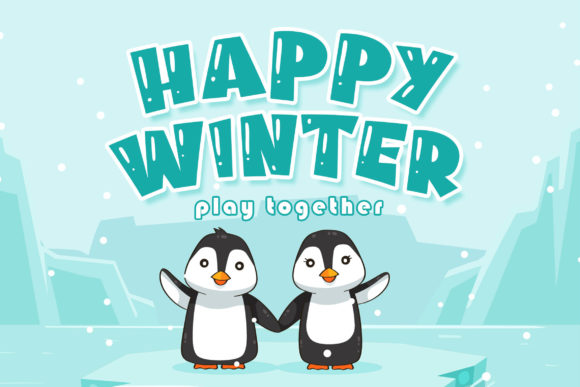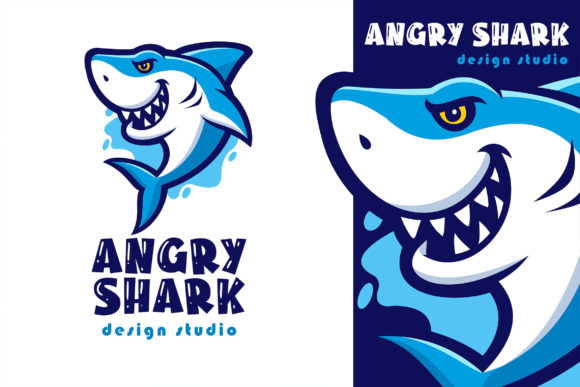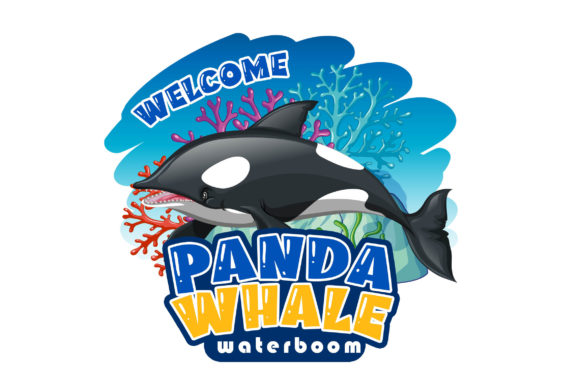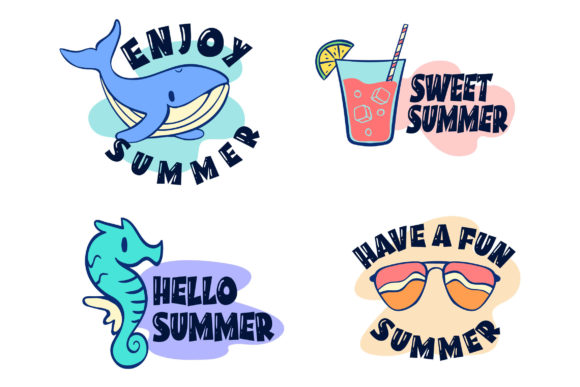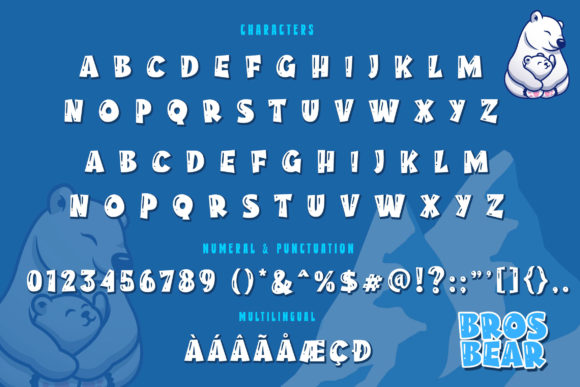
Bros Bear Font: The Ultimate Choice for Playful Designs
Are you a designer or crafter looking for a font that embodies playfulness and authenticity? Look no further than Bros Bear Font! This adorable display font is perfect for any children’s activity or school project, and is sure to bring a touch of whimsy to your designs.
What is Bros Bear Font?
Bros Bear Font is a cute and cartoon-like display font that is designed to capture the imagination of kids and adults alike. Its chunky lettered design makes it easy to read and adds a playful touch to any design. Whether you’re creating a poster, flyer, or social media graphic, Bros Bear Font is the perfect choice.
Key Features of Bros Bear Font
- Playful and Authentic: Bros Bear Font embodies the spirit of playfulness and authenticity, making it perfect for designs that require a fun and carefree touch.
- Chunky Lettered Design: The font’s chunky lettered design makes it easy to read and adds a tactile feel to your designs.
- Cute and Cartoon-like: The font’s cute and cartoon-like design makes it perfect for children’s activities, school projects, and any design that requires a touch of whimsy.
- Versatile: Bros Bear Font can be used for a wide range of designs, from posters and flyers to social media graphics and more.
Why Choose Bros Bear Font?
So why choose Bros Bear Font for your designs? Here are just a few reasons:
- Adds a Touch of Whimsy: Bros Bear Font adds a touch of whimsy to your designs, making them more engaging and fun.
- Perfect for Kids: The font’s playful and authentic design makes it perfect for kids’ activities and school projects.
- Easy to Read: The font’s chunky lettered design makes it easy to read, even from a distance.
- Versatile: Bros Bear Font can be used for a wide range of designs, making it a great addition to any designer’s toolkit.
How to Use Bros Bear Font
Using Bros Bear Font is easy! Here are a few tips to get you started:
- Pair with Other Fonts: Pair Bros Bear Font with other fonts to create a unique and eye-catching design.
- Use for Headings: Use Bros Bear Font for headings and titles to add a touch of whimsy to your designs.
- Add to Your Designs: Add Bros Bear Font to your designs to bring them to life and make them more engaging.
In conclusion, Bros Bear Font is a cute and cartoon-like display font that embodies playfulness and authenticity. Its chunky lettered design makes it easy to read and adds a playful touch to any design. Whether you’re a designer or crafter, Bros Bear Font is the perfect choice for any children’s activity or school project. So why wait? Add Bros Bear Font to your designs today and watch them come alive!